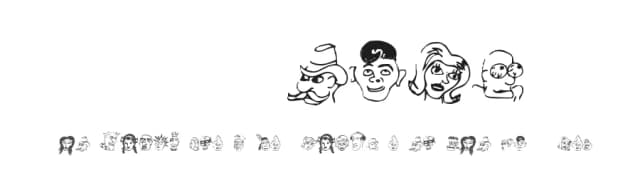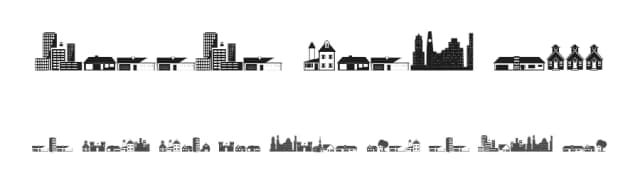
About Dragoon Font
Dragoon Font is a versatile dingbats font that works for both headings and body text. Pair it with a contrasting sans-serif or serif font to add visual interest and a clear distinction between titles and body copy.
Dragoon Font
Dragoon Font is a dingbats typeface by Heather Daniel, ideal for logos, invitations, branding, and creative projects.